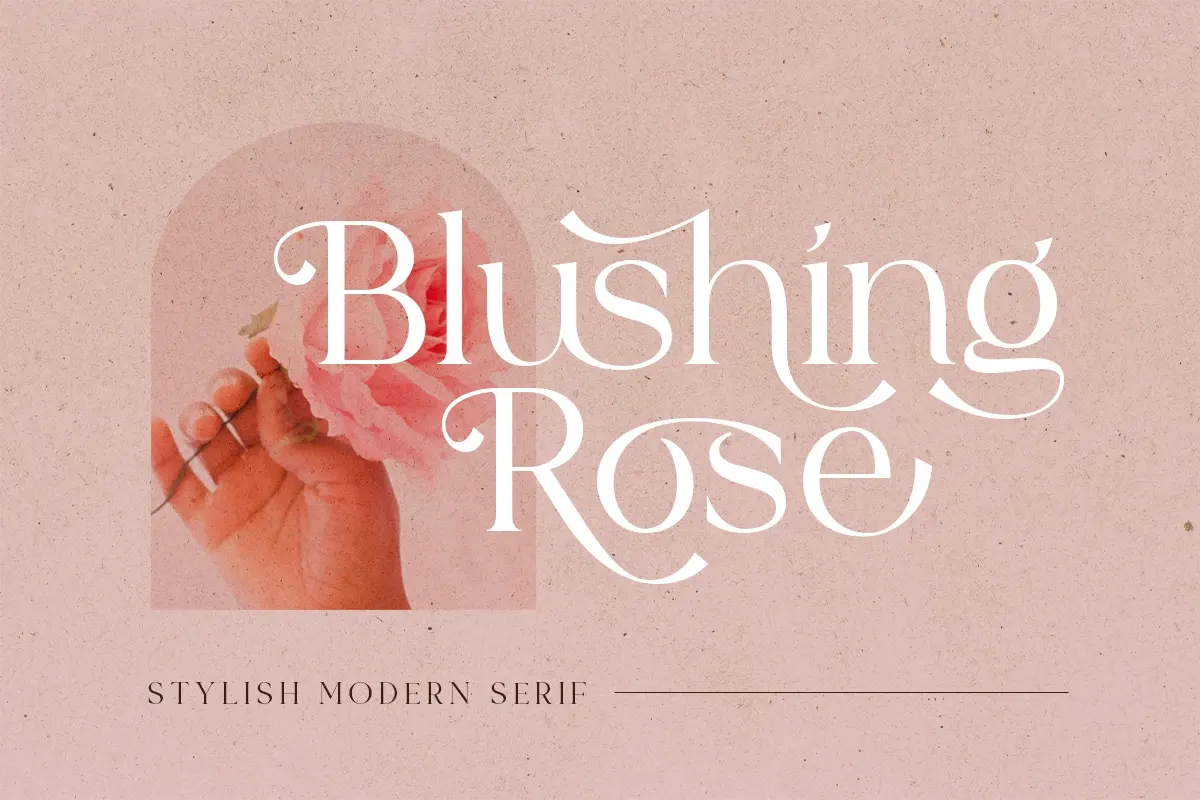
You must purchase this font for commercial use. However, you can download Blushing Rose – Stylish Modern Serif Font Free Download for testing purposes. Blushing Rose is a chic and contemporary serif typeface that blends classic elegance with a fresh, fashionable flair. Ideal for beauty branding, wedding designs, editorial spreads, luxury packaging, and stylish social media graphics, this font brings a soft yet confident presence to any project.
With its delicate serifs, graceful curves, and modern proportions, Blushing Rose offers both charm and versatility. It’s especially effective in headlines, logos, and statement typography where a touch of sophistication is needed. This font also includes stylistic alternates and ligatures that add creative flexibility and uniqueness to your layouts. Blushing Rose – Stylish Modern Serif Font Free Download allows you to experiment with its look and feel before committing to commercial use. Be sure to purchase the appropriate license for client or business work. Download Blushing Rose – Stylish Modern Serif Font Free Download today and infuse your designs with modern romance and elegance.